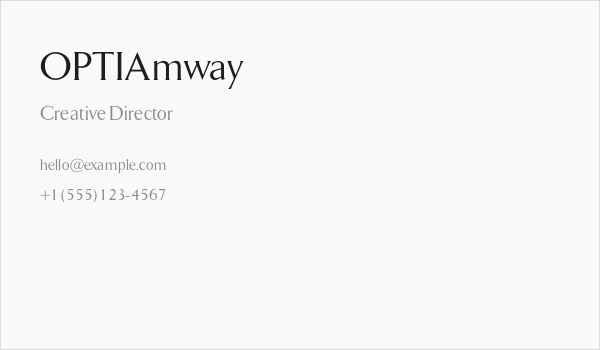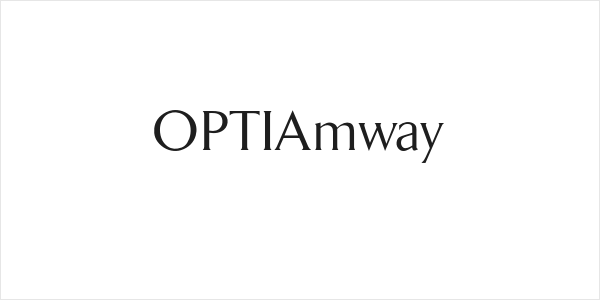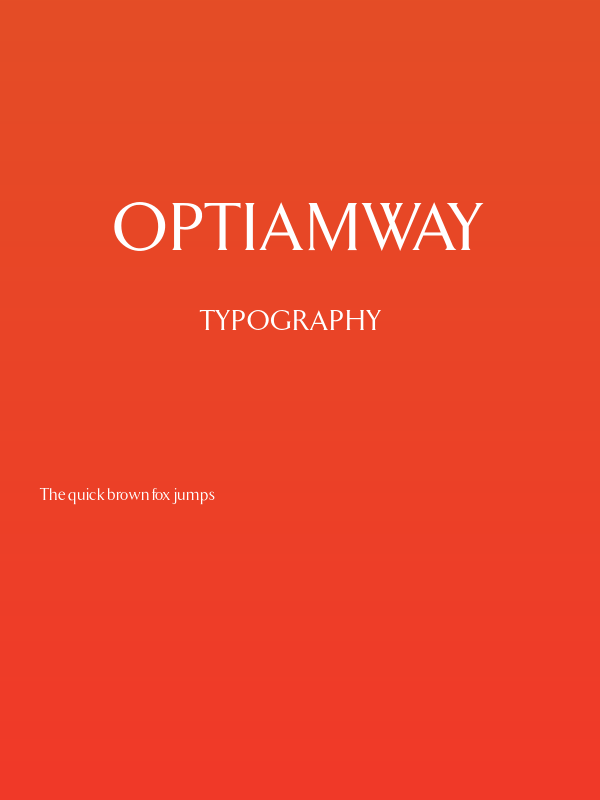
OPTIAmway Font
OPTIAmway Description
This typeface exhibits a classic serif style with elegant, thin strokes and subtle variations in line thickness, creating a refined and sophisticated appearance. The uppercase letters are well-proportioned, with a slight contrast between thick and thin strokes, giving them a timeless elegance. The lowercase characters maintain a consistent style, with smooth curves and sharp serifs that enhance readability. The numerals are clear and distinct, matching the overall aesthetic of the font. Special characters are designed with the same attention to detail, ensuring a cohesive look across all glyphs. This font is versatile, suitable for both digital and print media, and can be used to convey a sense of tradition and reliability.
| Proposed Projects | Ideal for editorial design, book covers, formal invitations, and branding projects that require a touch of elegance and tradition. |